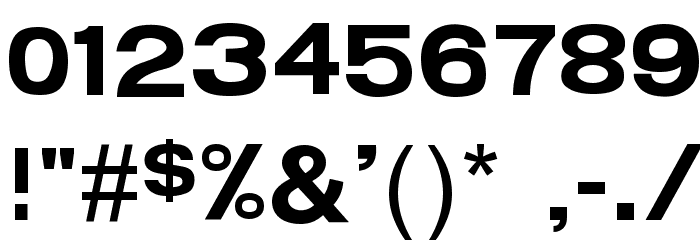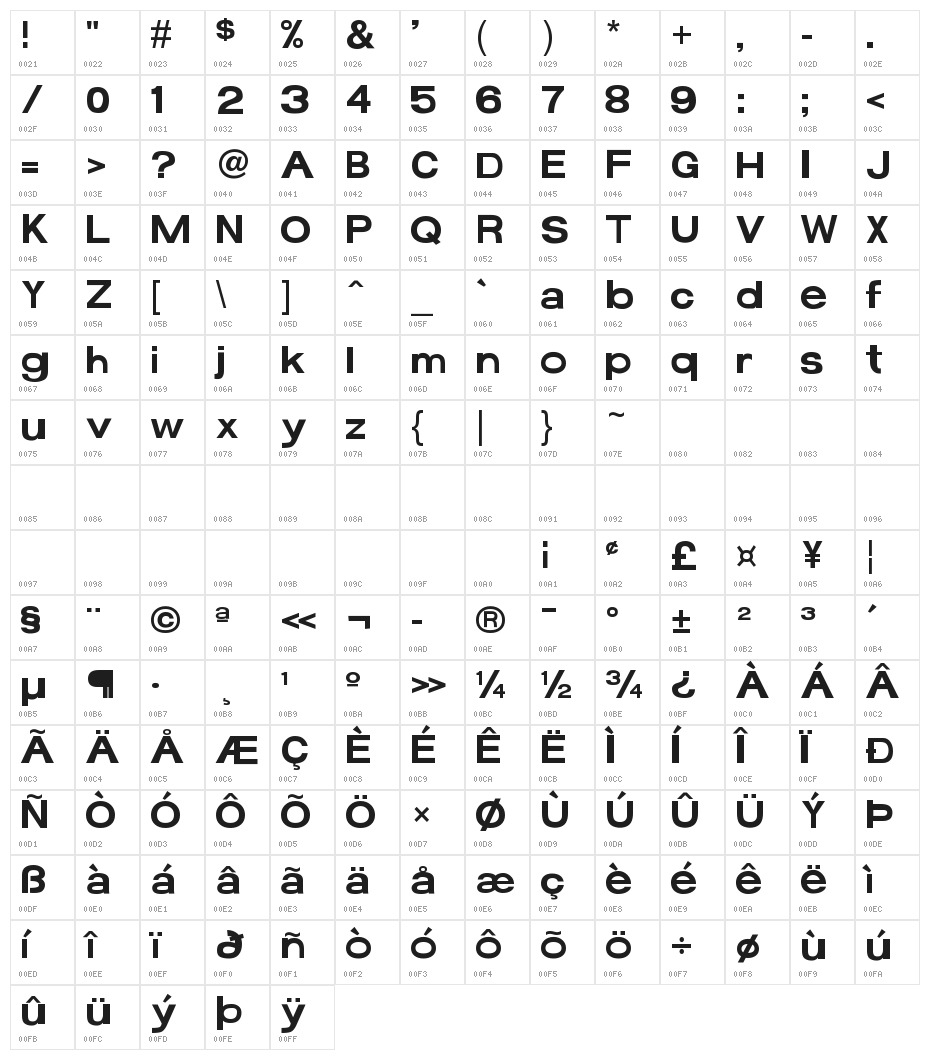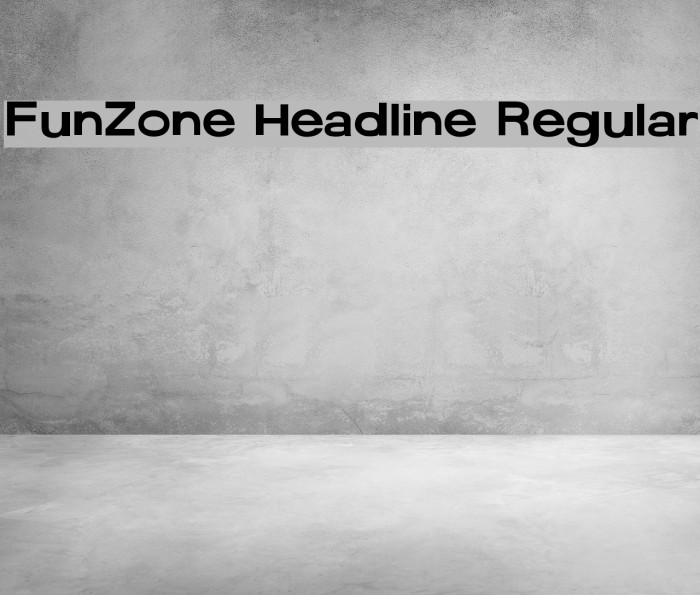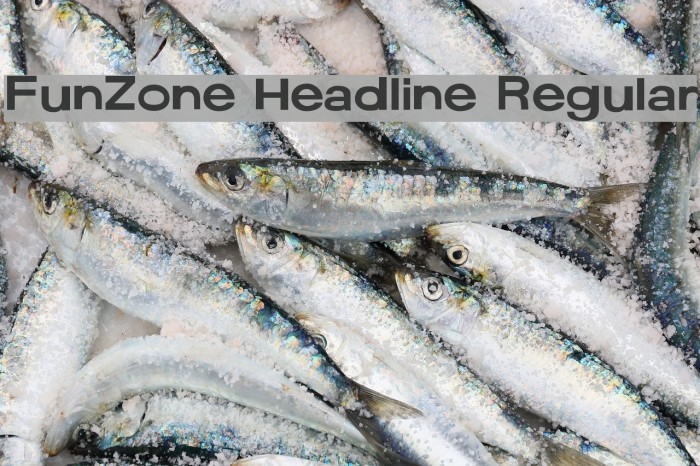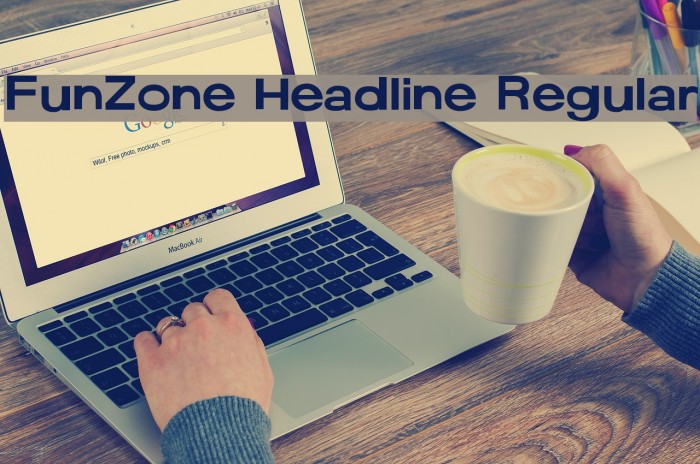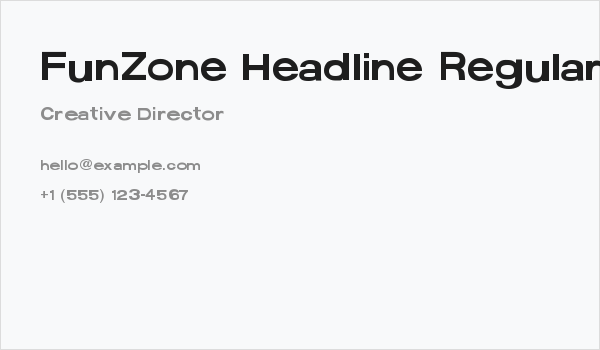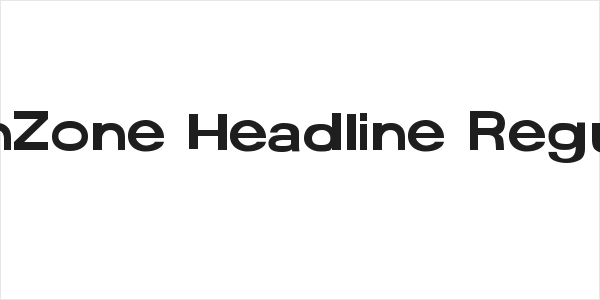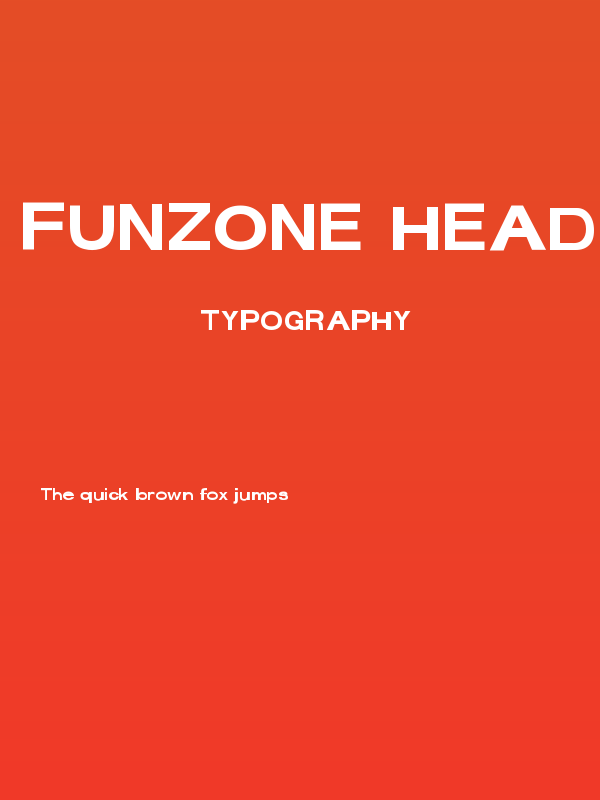
FunZone Headline Regular Font
FunZone Headline Regular Description
This font features a bold and modern design with clean, geometric lines. The uppercase letters are strong and impactful, making them ideal for headlines and titles. The lowercase letters maintain a consistent style, offering a harmonious balance with the uppercase. Numbers are clear and easy to read, while the special characters are distinct and well-formed. The overall appearance is sleek and professional, suitable for a variety of design projects.
| Proposed Projects | This font is perfect for branding, advertising, posters, and web design projects that require a strong visual impact. |